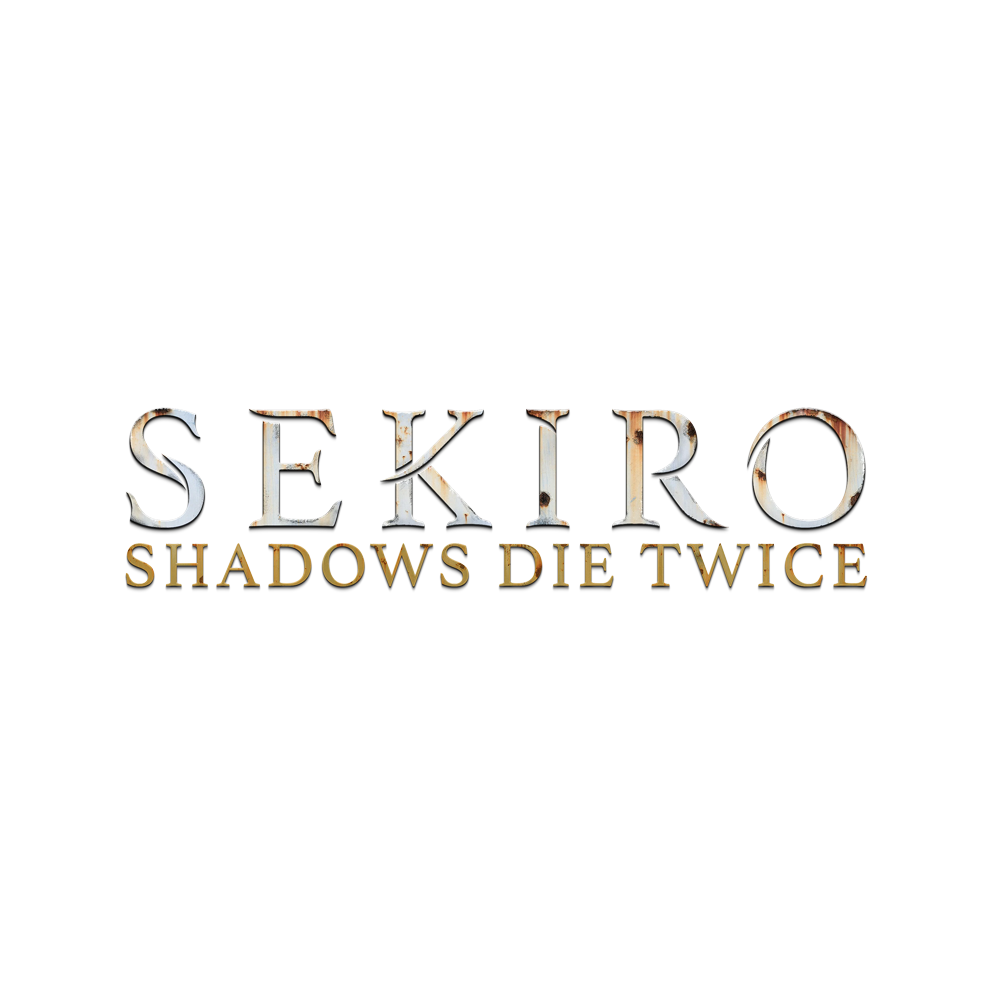
Sekiro Shadows Die Twice Font
ActionSekiro: Shadows Die Twice is an action-adventure video game developed by FromSoftware and published by Activision.
Both the title and the subtitle uses Athelas, though the main title seems to be heavily modified. Athelas is a text serif designed for use in body text and inspired by British fine book printing. It includes a regular and bold with italics.